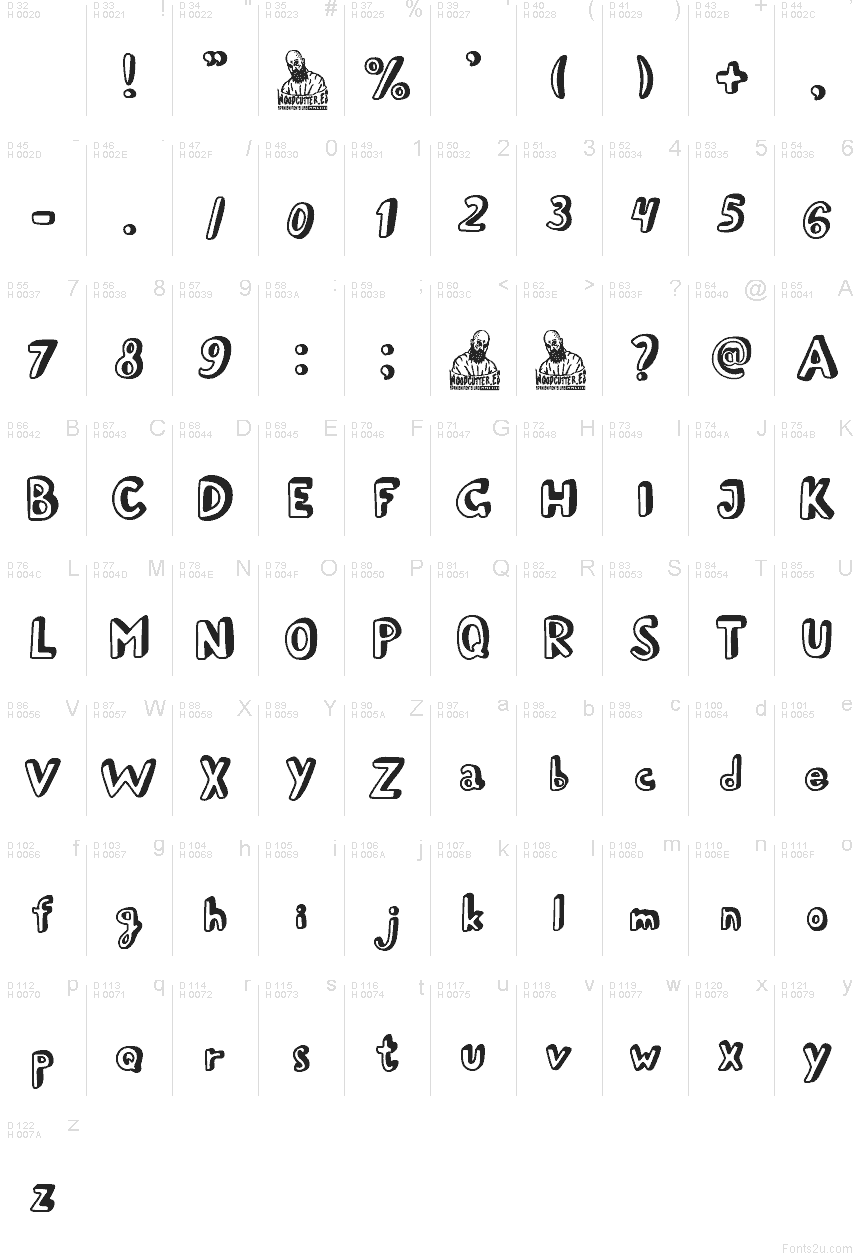
Young Rabbit, by Woodcutter Manero, is a free cartoon display font with a loose, hand-drawn bounce and thick rounded outlines. The letters feel springy and slightly uneven in a good way, with soft curves and a doodled rhythm that keeps the tone playful rather than polished.
It fits kids' book covers, snack packaging, party invitations, sticker graphics, and cheerful social posts where a free font needs to feel friendly at a glance. Use it for short headlines, title cards, or big name treatments, because the chunky outlined letters carry a lively, scribbled personality without needing much else.